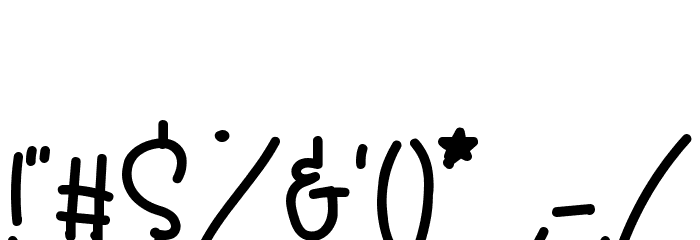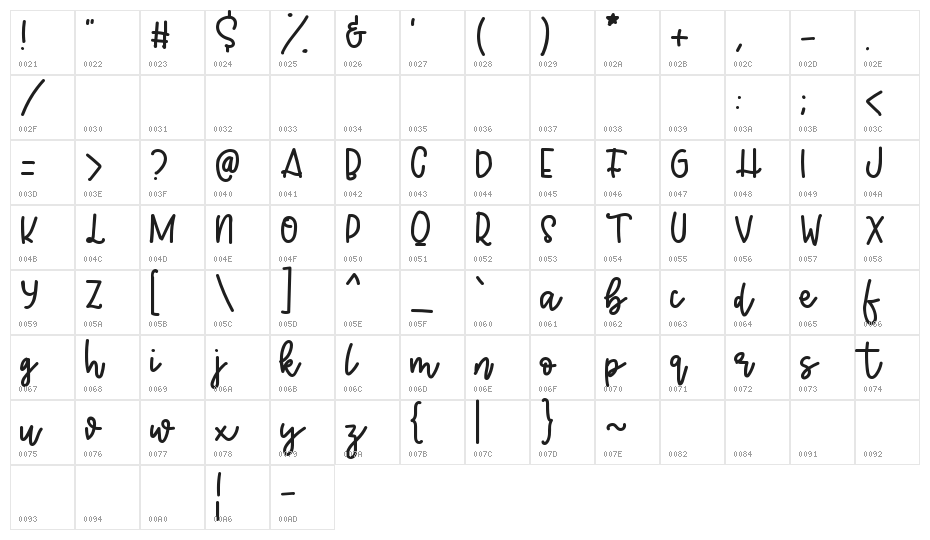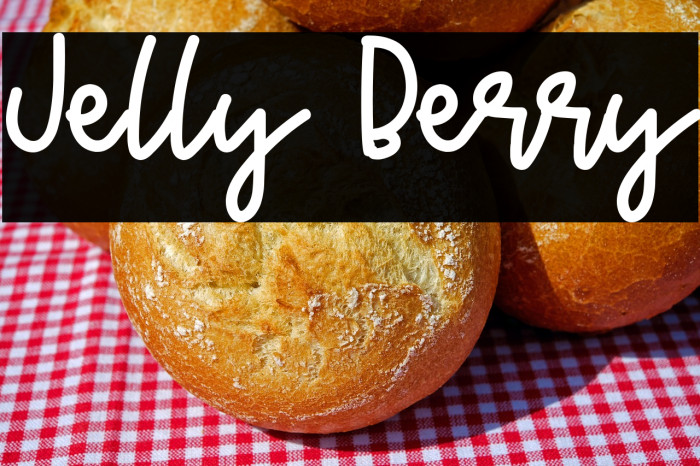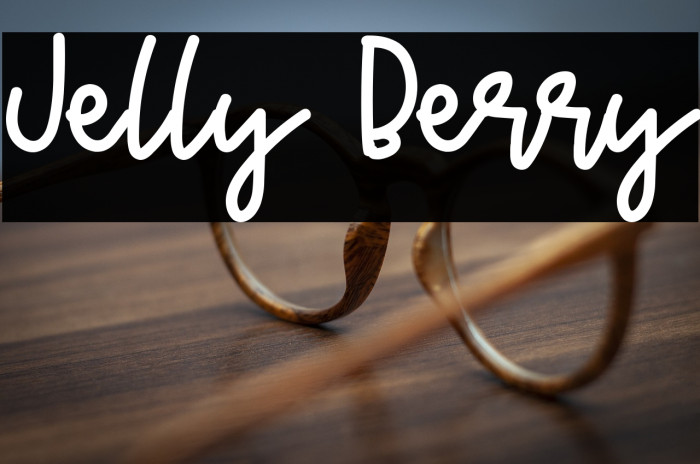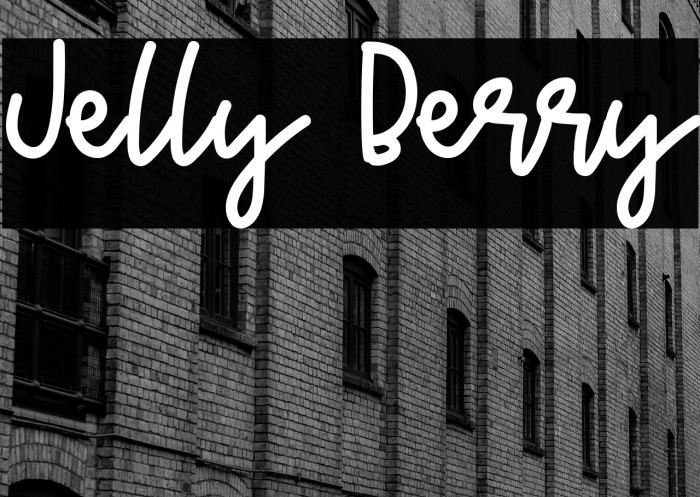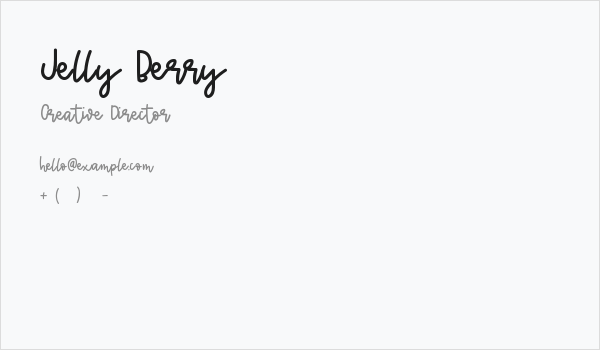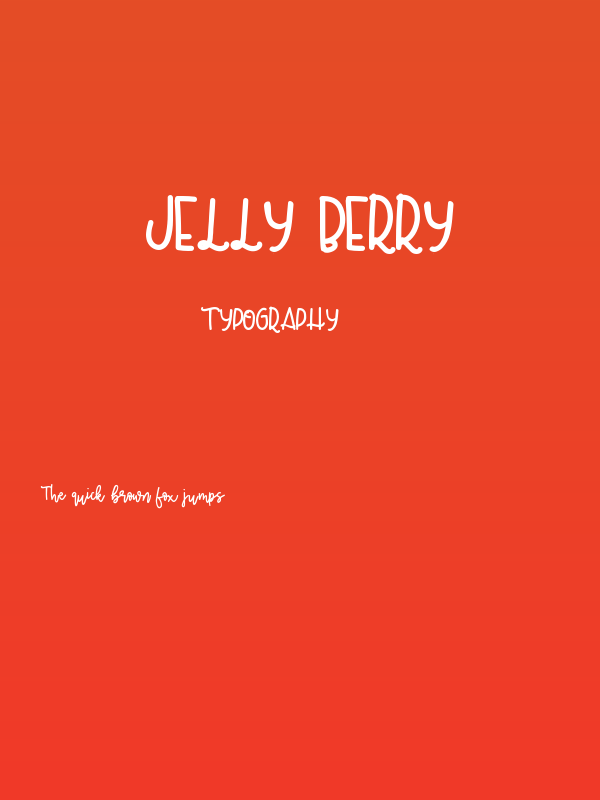
Jelly Berry Font
Jelly Berry Description
This playful and energetic font features a handwritten style with a casual, friendly appearance. The letters are slightly slanted, giving a dynamic flow to the text. The strokes are bold and rounded, creating a sense of warmth and approachability. The uppercase and lowercase letters maintain a consistent style, with the lowercase letters exhibiting a more pronounced cursive influence. The numbers and special characters are designed to match the overall playful aesthetic, ensuring a cohesive look across all text elements.
Overall StylePlayful
Use CaseHeadlines, Logos, Social Media
Proposed ProjectsIdeal for children's books, playful branding, greeting cards, and social media graphics.